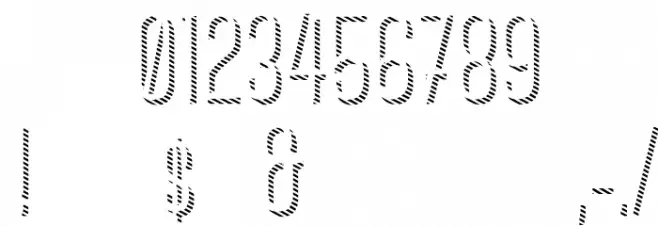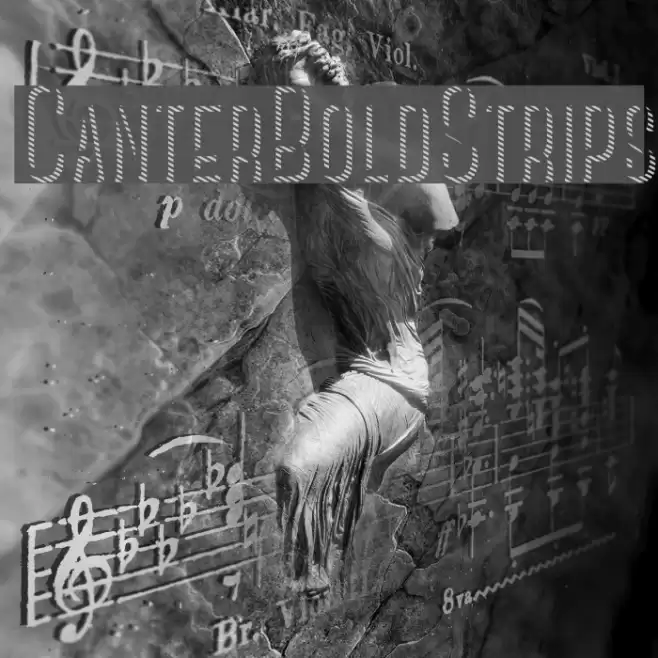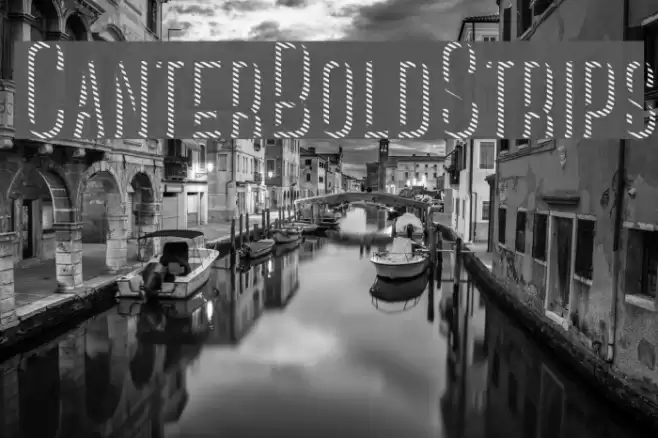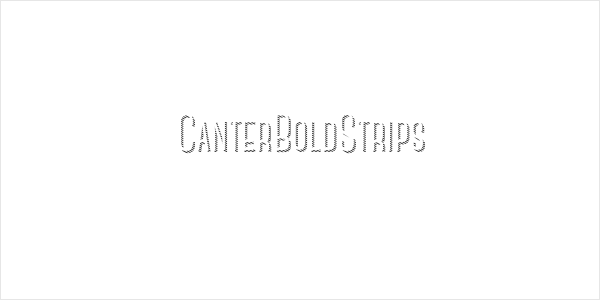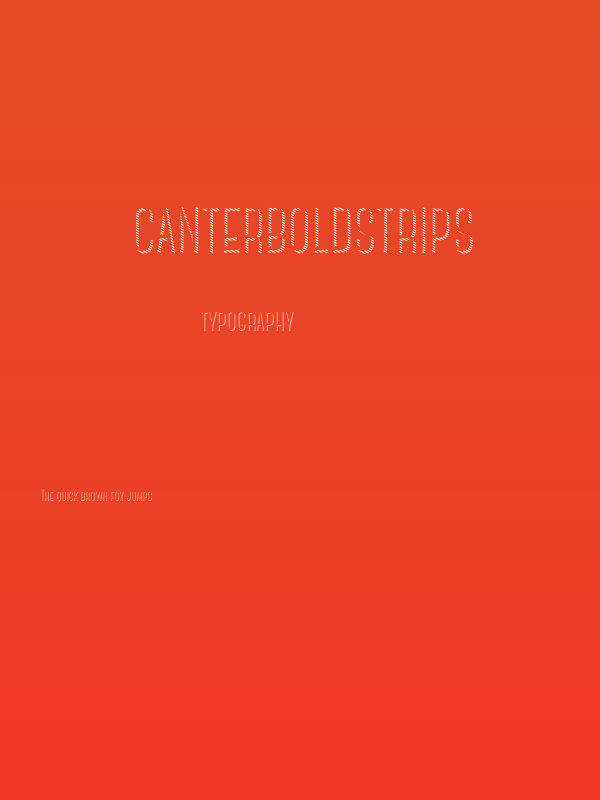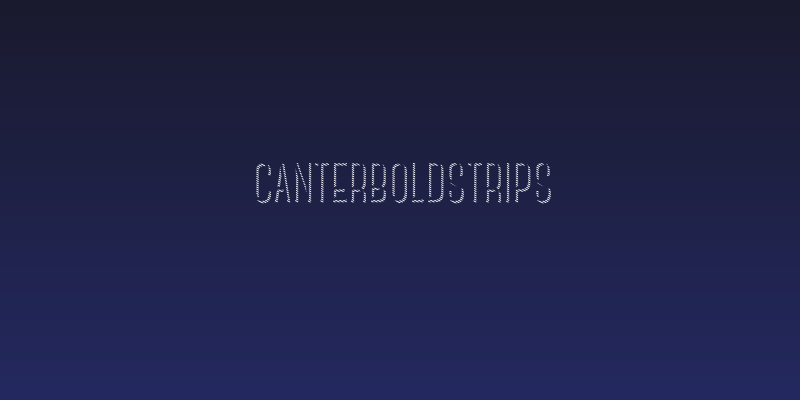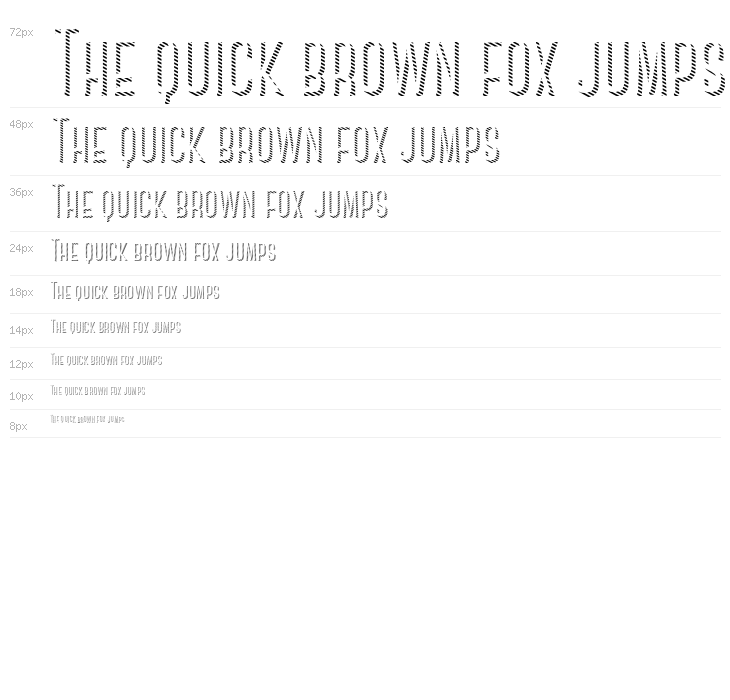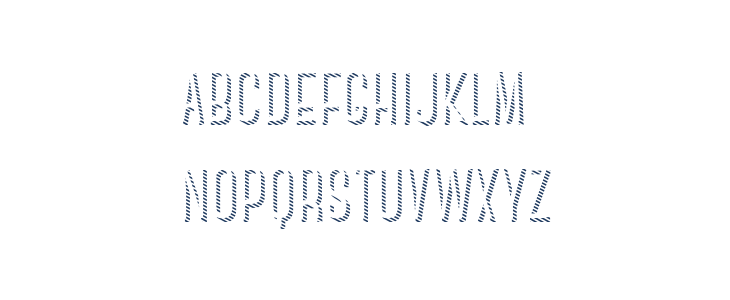
CanterBoldStrips Font
CanterBoldStrips Description
This font features a unique striped pattern that runs diagonally across each character, creating a dynamic and eye-catching effect. The uppercase and lowercase letters maintain a consistent height, contributing to a uniform appearance. The numbers and special characters are designed with the same striped style, ensuring cohesion across all elements. The font's bold weight and decorative style make it stand out, while the spacing between characters is normal, allowing for readability despite the intricate design. The contrast in stroke thickness is medium, providing a balanced look that is neither too heavy nor too light.